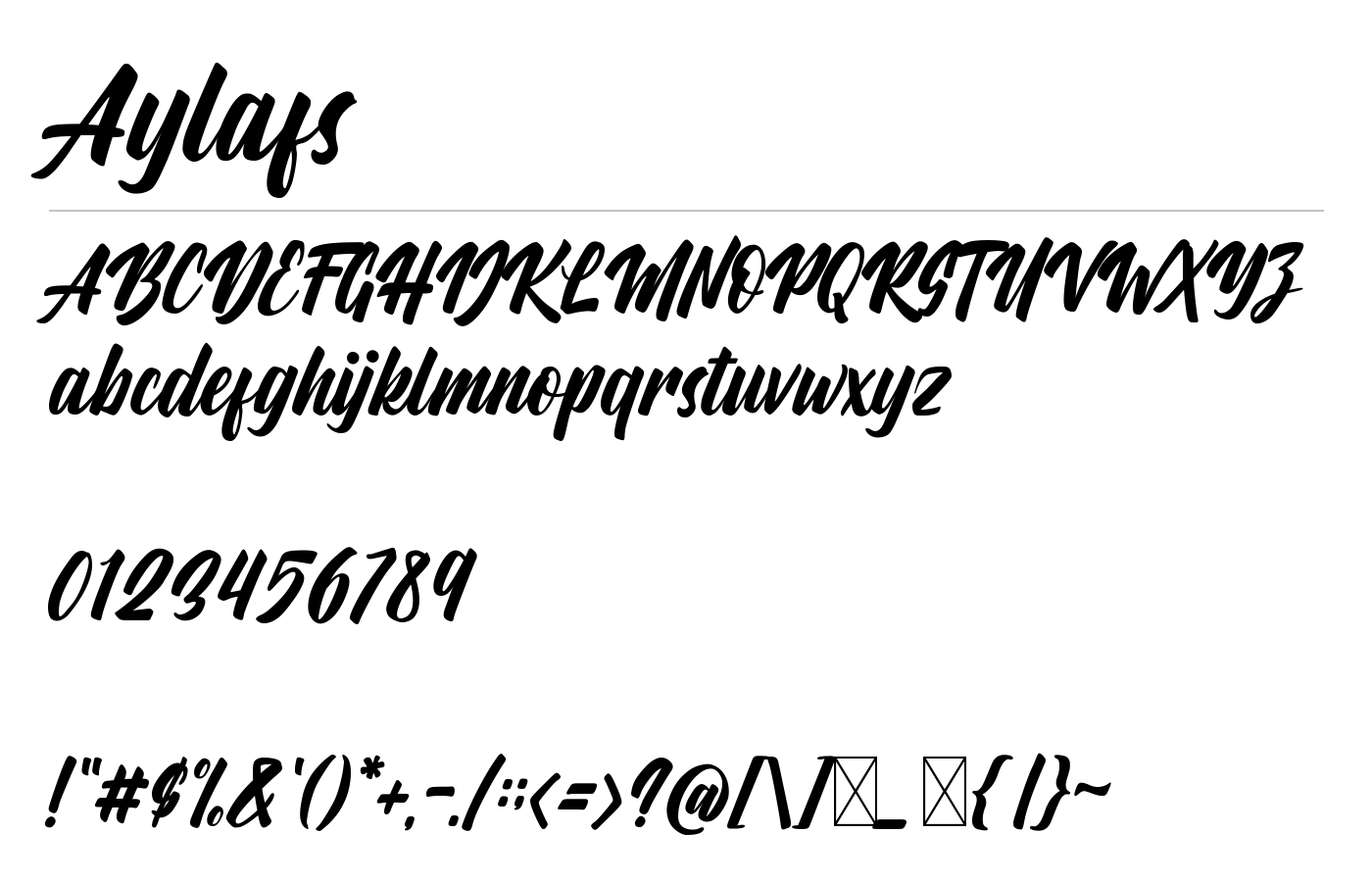
Aylafs is a bold, script-style font with a lively, hand-lettered feel, featuring smooth, flowing strokes and slightly condensed letterforms. Its energetic and friendly personality makes it ideal for branding, invitations, and casual headlines, bringing a personal, handcrafted touch to any project. This font works especially well where a dynamic, approachable vibe is desired.
Aylafs Font
About Aylafs Font